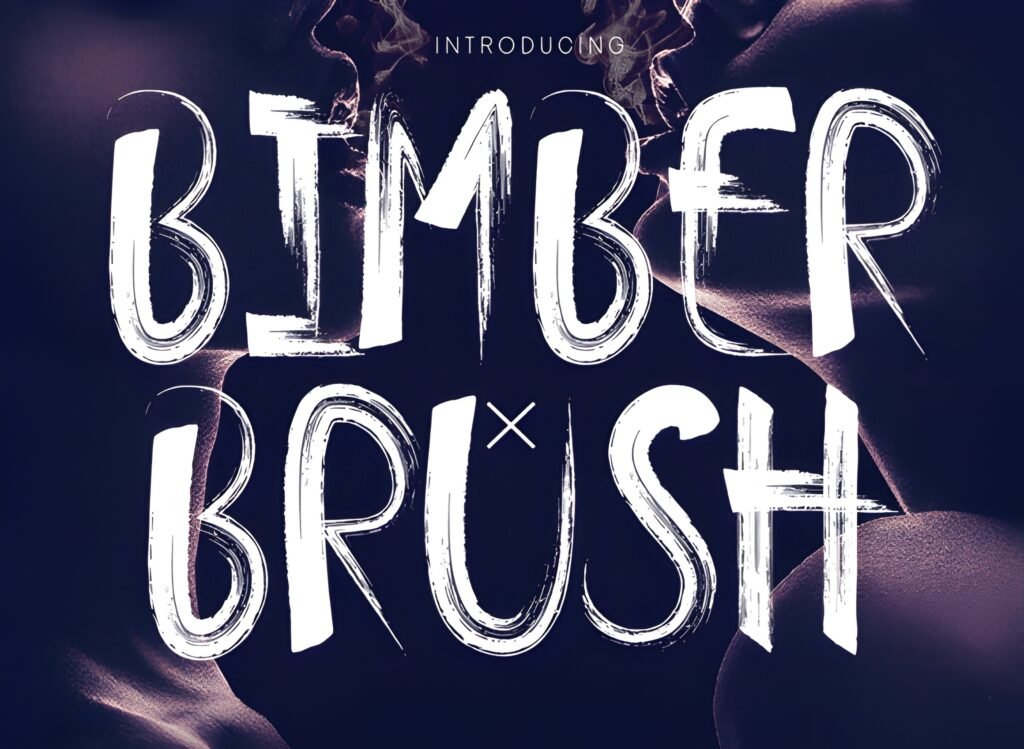
✒️ Bimber Brush — Bold Handwritten Brush Font
Bimber Brush is a striking handwritten brush typeface that combines bold energy with a condensed structure, making it the perfect choice for projects that demand personality and impact. Its textured strokes and handcrafted feel evoke authenticity, giving every design a raw, artistic edge.
This font is ideal for tattoos, barbershop branding, t‑shirt prints, streetwear, posters, logos, product packaging, and social media graphics. With its condensed proportions, Bimber Brush ensures maximum readability while maintaining a strong, expressive look. It captures the essence of urban style and creative rebellion, making it a favorite for designers seeking to stand out.
Key Advantages
- Unique handwritten style — adds individuality and character to any project.
- Condensed & bold design — perfect for impactful headlines and compact layouts.
- Versatile applications — works equally well for tattoos, apparel, barbershops, lifestyle branding, and digital art.
- Authentic brush texture — creates a handcrafted, artistic vibe that feels modern yet timeless.
- Easy readability — despite its bold strokes, the font remains clear and functional.
Whether you’re designing edgy logos, stylish apparel, or personalized branding, Bimber Brush transforms text into a powerful visual statement. It’s more than just a font — it’s a creative tool that brings energy, authenticity, and boldness to every project.